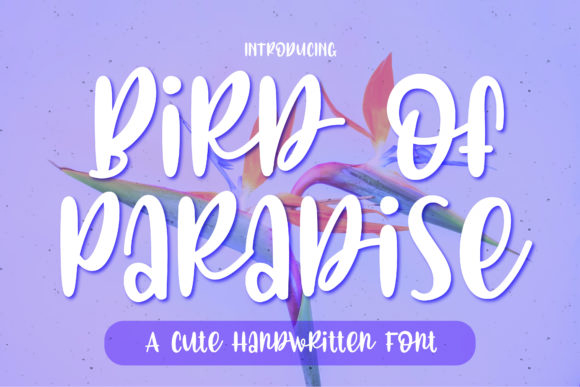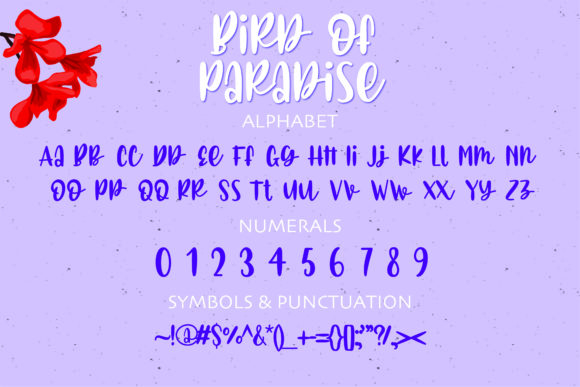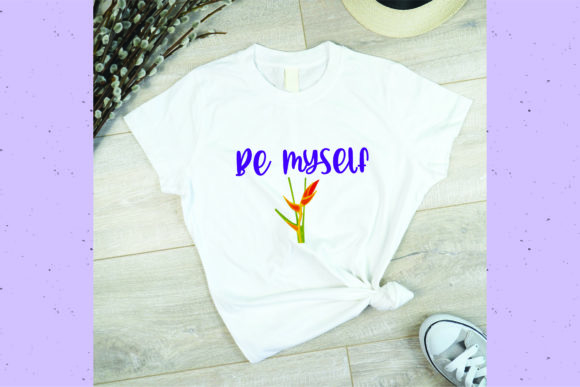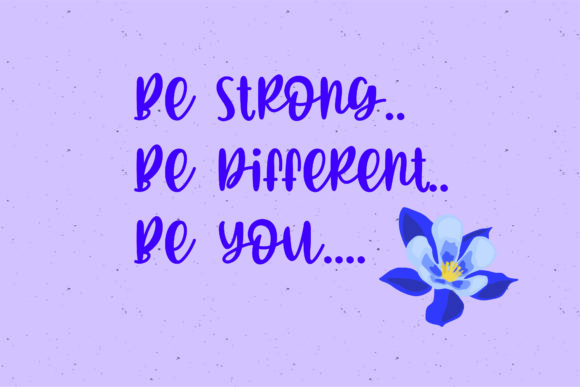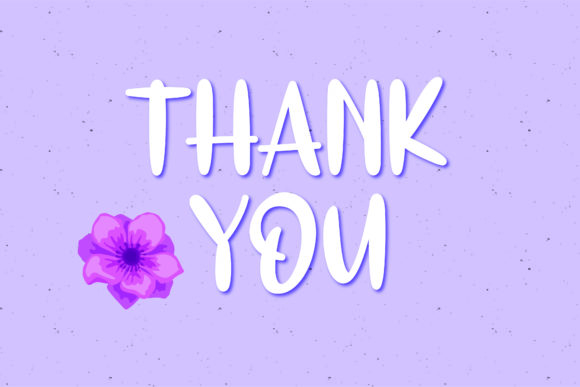
Bird of Paradise Font
Bird of Paradise is a chic, trendy and fun handwritten font. Whether you use it for cartoon related designs, children games or just any creation that requires a lovely touch, this font will be an amazing choice.